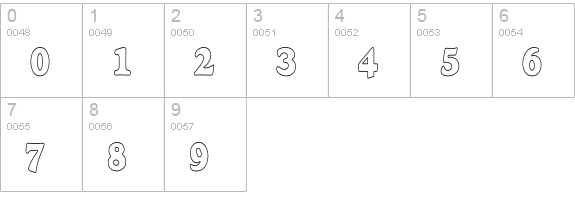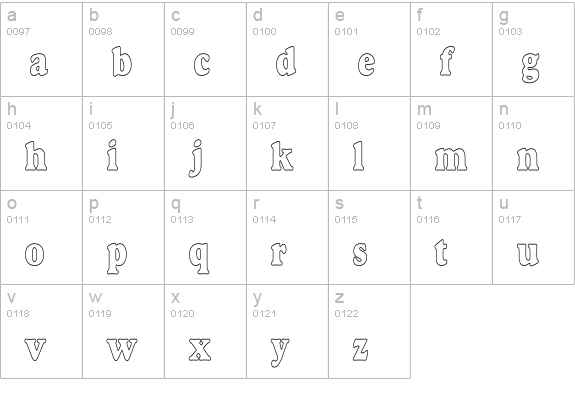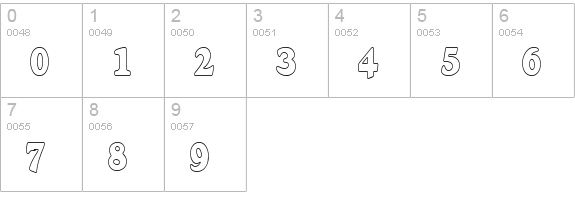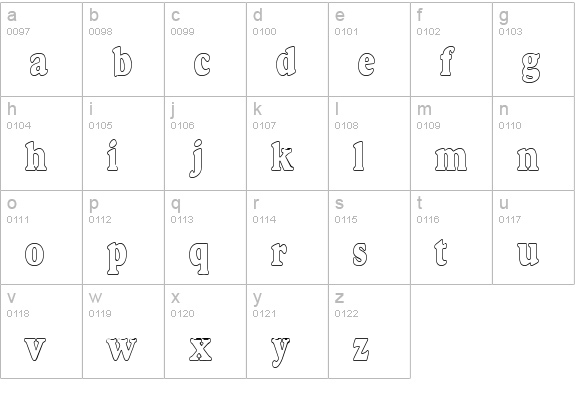
Alexuss Heavy Hollow Condensed is a heavy, high-impact, condensed-width variant in the Alexuss typeface family \xE2\x80\x94 well suited to high-impact headlines, posters, and display advertising.
Alexuss Heavy Hollow Condensed font is a striking and versatile typeface that exudes modernity and sophistication. Its bold and hollow design gives it a unique and edgy look that is perfect for a wide range of design projects. Whether you're working on a poster, logo, or website, this font will make a bold statement and capture attention effortlessly. What's even better is that Alexuss Heavy Hollow Condensed font is available for free download at FontsMarket.com. This means you can easily access this high-quality font and use it in your projects without any cost. Don't miss out on the opportunity to add this eye-catching font to your collection and elevate your designs to the next level.